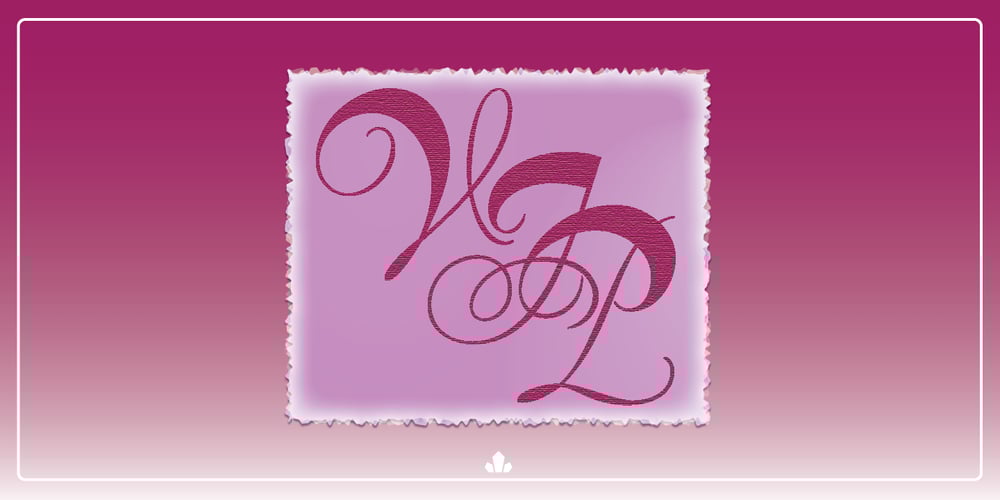
VIP font
VIP Font Family was designed by Rebecca Alaccari, Joachim Romann and published by Canada Type. VIP contains 1 styles and family package options. VIP is a humanist sans serif uppercase and figures combined with a freshly redrawn revival of the classic Constanze initials originally designed by Joachim Romann for Stempel in 1956. As well as a vehicle to revive the Constanze initials, VIP was inspired by modern typography found in many artful books, on many product packages, and on the windows and literature of high-end restaurants, jewelry stores, haute couture fashion sellers, architecture firms and trendy brand name establishments. If you’ve walked through the soho or downtown of any major metropolitan, you’ve seen them: Widely tracked words or lines starting with a script majuscule and going on with clean and comfortable sans serif caps. If classy modern combination typography is your thing, you will find much pleasure in using VIP. VIP was updated with expanded language support in 2012. It now supports a very wide range of codepages, including Cyrillic, Greek, Central and Eastern European, Turkish, Baltic, Vietnamese, and of course Celtic/Welsh.